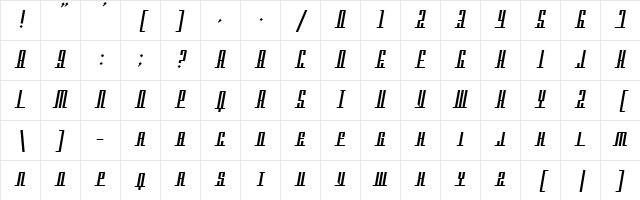
Americana Dreams SC Regular Free Font
Americana Dreams SC Regular
Design Context for Americana Dreams SC
Americana Dreams SC is a composed and adaptable typeface that performs quietly and consistently across a wide range of design contexts.